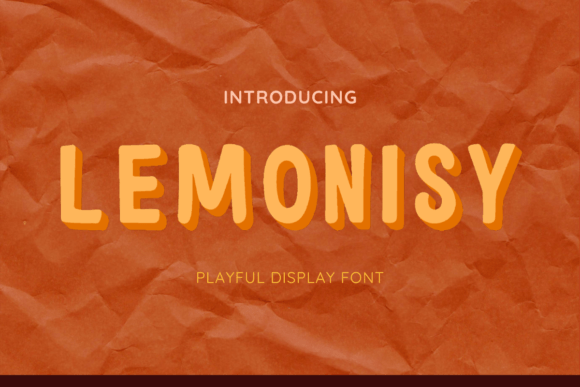
Embark on an enchanting journey with Lemonisy Font, a whimsical and vibrant creation from FOLV, designed to awaken your imagination and captivate your audience. This remarkable font family bursts with individuality, featuring an array of mesmerizing color combinations that dance across your screen like a jubilant celebration of creativity. Lemonisy Font is more than just a collection of letters; it's an artistic expression that transforms words into captivating works of art.
Immerse yourself in the boundless creative possibilities of Lemonisy Font, where your imagination knows no limits. Its spirited nature lends itself to a myriad of awe-inspiring projects, from motivational digital posters that ignite inspiration to captivating branding that leaves an indelible impression. Whether you're an aspiring artist seeking to craft enchanting digital masterpieces or a business owner aiming to elevate your brand's visual identity, Lemonisy Font is your perfect companion.
With its cheerful disposition, Lemonisy Font possesses the remarkable ability to transform ordinary words into extraordinary visual spectacles. Its playful spirit brings a smile to the face of the beholder, while its vivid colors inject an infectious sense of joy into any design. Unleash your creativity and embark on an artistic adventure with Lemonisy Font, where your imagination takes center stage.
Lemonisy Font is not just another font; it's an invitation to embark on a journey of self-expression and visual artistry. Its captivating colors and enchanting style will effortlessly elevate your projects, leaving a lasting impression on your audience. Embrace the magic of Lemonisy Font and unlock the full potential of your creativity today!